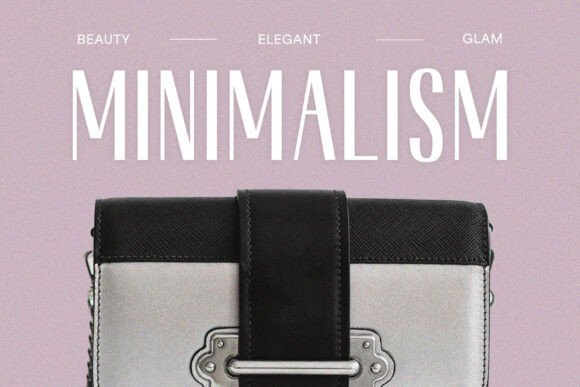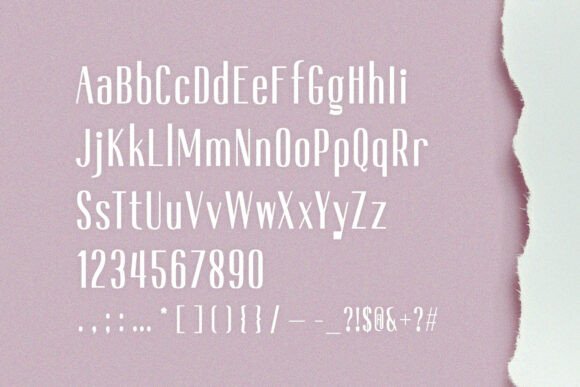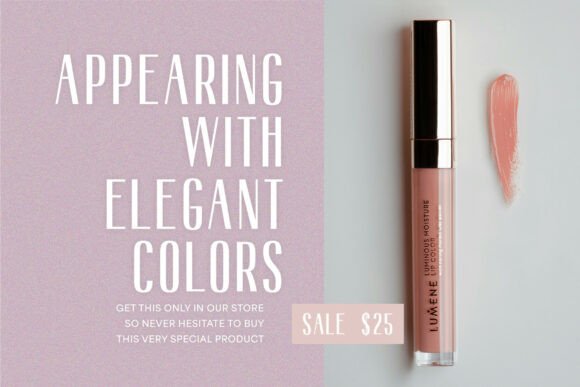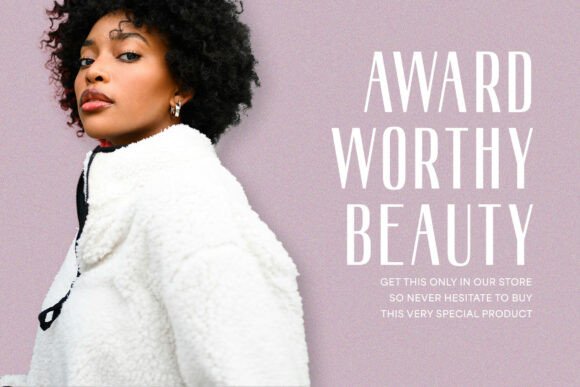
Introducing Harlet Font: The Ultimate Choice for Modern Designs
In the world of typography, fonts play a crucial role in conveying the tone and personality of a brand or design. With numerous font options available, finding the perfect one that embodies elegance, sophistication, and modernity can be a daunting task. However, if you’re looking for a sleek and modern condensed sans-serif typeface, look no further than Harlet Font.
What is Harlet Font?
Harlet Font is a stunning, modern sans-serif typeface that boasts a clean and minimalistic design. Its tall, narrow proportions create a striking visual appeal, making it an ideal choice for designers and crafters seeking to create impactful titles, refined logo designs, and elegant branding materials.
Key Features of Harlet Font
- Condensed Sans-Serif Design: Harlet Font features a sleek, condensed sans-serif design that exudes elegance and sophistication.
- Clean and Minimalistic: The font’s clean and minimalistic design makes it perfect for fashion branding, editorial designs, social media graphics, and minimalist layouts.
- Tall and Narrow Proportions: Harlet Font’s tall, narrow proportions create a striking visual appeal, ideal for creating impactful titles and refined logo designs.
- Versatile: The font is versatile and can be used for various design projects, including fashion branding, editorial designs, social media graphics, and minimalist layouts.
Perfect for Fashion Branding
Harlet Font is an excellent choice for fashion branding, as its sleek and modern design embodies the elegance and sophistication often associated with the fashion industry. The font’s clean and minimalistic design ensures that your branding materials, such as logos, business cards, and packaging, exude refinement and luxury.
Ideal for Editorial Designs
Harlet Font is also perfect for editorial designs, such as magazine layouts, articles, and blog posts. The font’s readability and clean design make it easy to read, even in small font sizes. Additionally, the font’s condensed design allows for more text to be fitted into a smaller space, making it ideal for layouts where space is limited.
Great for Social Media Graphics
In today’s digital age, social media graphics have become an essential part of any brand’s marketing strategy. Harlet Font is an excellent choice for social media graphics, as its modern and sleek design is sure to grab the attention of your audience. The font’s versatility allows it to be used for various social media platforms, including Facebook, Instagram, Twitter, and more.
- Experiment with Font Sizes: The font’s condensed design allows for experimentation with different font sizes to create visual hierarchy and emphasis.
- Use for Headings and Titles: Harlet Font is perfect for headings and titles, as its bold and condensed design creates a striking visual appeal.
In conclusion, Harlet Font is a stunning, modern sans-serif typeface that is perfect for designers and crafters seeking to create elegant, sophisticated, and modern designs. Its clean and minimalistic design, tall and narrow proportions, and versatility make it an excellent choice for various design projects, including fashion branding, editorial designs, social media graphics, and minimalist layouts. With Harlet Font, you can elevate your designs to the next level and create a lasting impression on your audience.